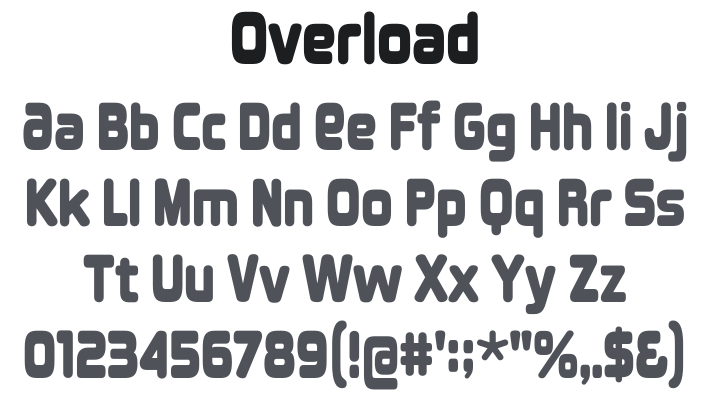
Overload Font Family
About Overload
Overload is a stout, heavy rounded techno display typeface from 1998 with pure Y2K DNA — chunky, soft-cornered letterforms featuring distinctive unicase A and E that inject an unmistakably late-90s digital attitude. A companion Burn style offers an outline version for layering effects. Perfect for sci-fi game titles, cyberpunk branding, retro-tech posters, electronic music graphics, and any headline that needs bold, unapologetic Y2K energy.